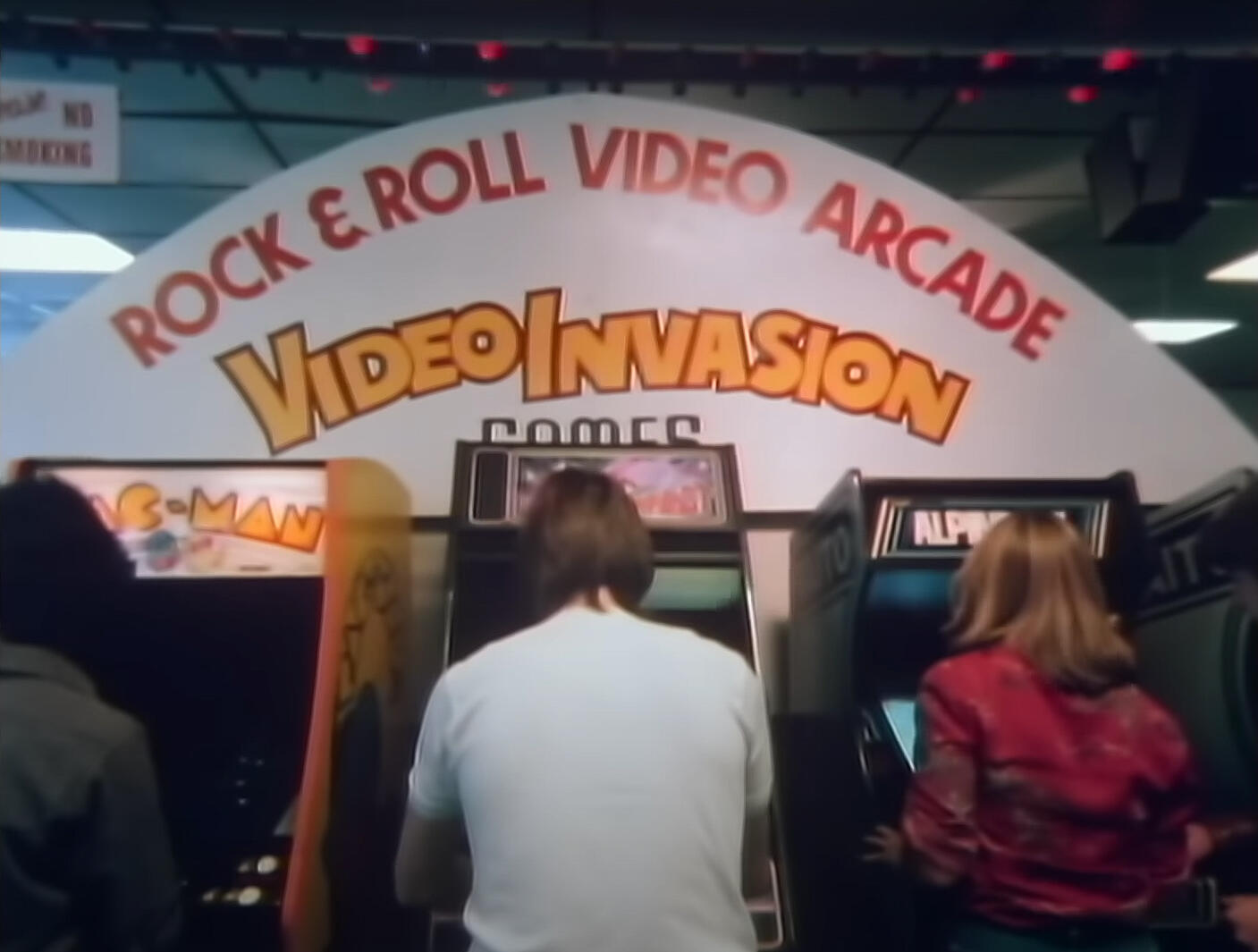
Video Invasion Fonts from Rush Subdivisions Video
I'm trying to determine two fonts from this screengrab from the Rush video for Subdivisions.
I can't identify ROCK & ROLL VIDEO ARCADE and GAMES (which is mostly covered by the Tempest machine). I'm pretty sure the VIDEO INVASION logo is hand drawn.